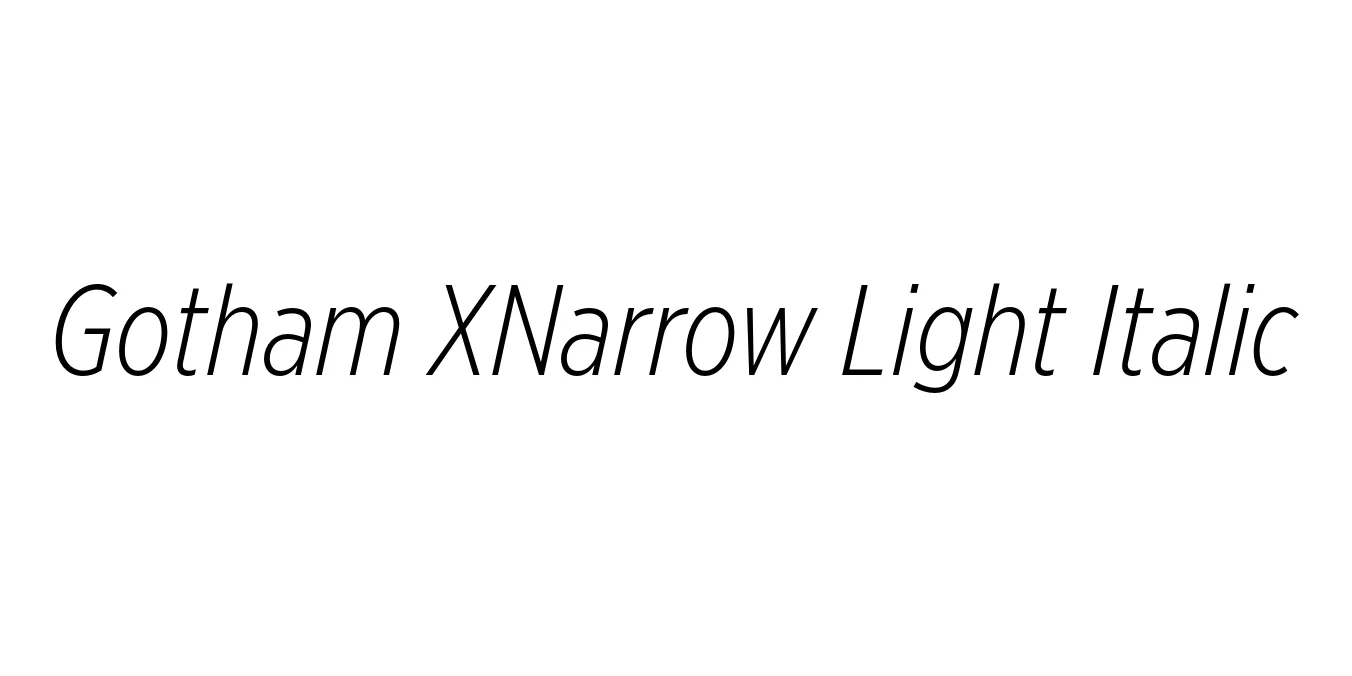
Gotham XNarrow Light Italic
Designed by Tobias Frere-Jones
Gotham XNarrow Light Italic is part of the legendary Gotham typeface family, originally commissioned by GQ magazine and designed by Tobias Frere-Jones. Inspired by the architectural and signage styles of mid-century New York City, the Gotham family has grown into one of the most recognizable and versatile geometric sans-serifs in the world. The XNarrow variant was specifically engineered to provide extreme horizontal economy while maintaining the font's signature open counters and authoritative structure.
The Light Italic weight offers a sophisticated, airy feel that combines the precision of geometric forms with the dynamic energy of a slanted posture. This specific style is often chosen for high-end editorial work and corporate communications where space is at a premium but the aesthetic quality cannot be compromised. Its clean lines and modern profile make it a staple for designers looking for a contemporary yet timeless typographic voice.
Gotham XNarrow Light Italic Best Uses
Perfect for magazine sidebars, captions, and secondary headlines where space is limited.
Ideal for dense navigation menus and interface elements on small screens.
Used for professional corporate identity systems needing a sophisticated, modern look.
Effective for small print, legal disclaimers, or secondary information in luxury advertising.